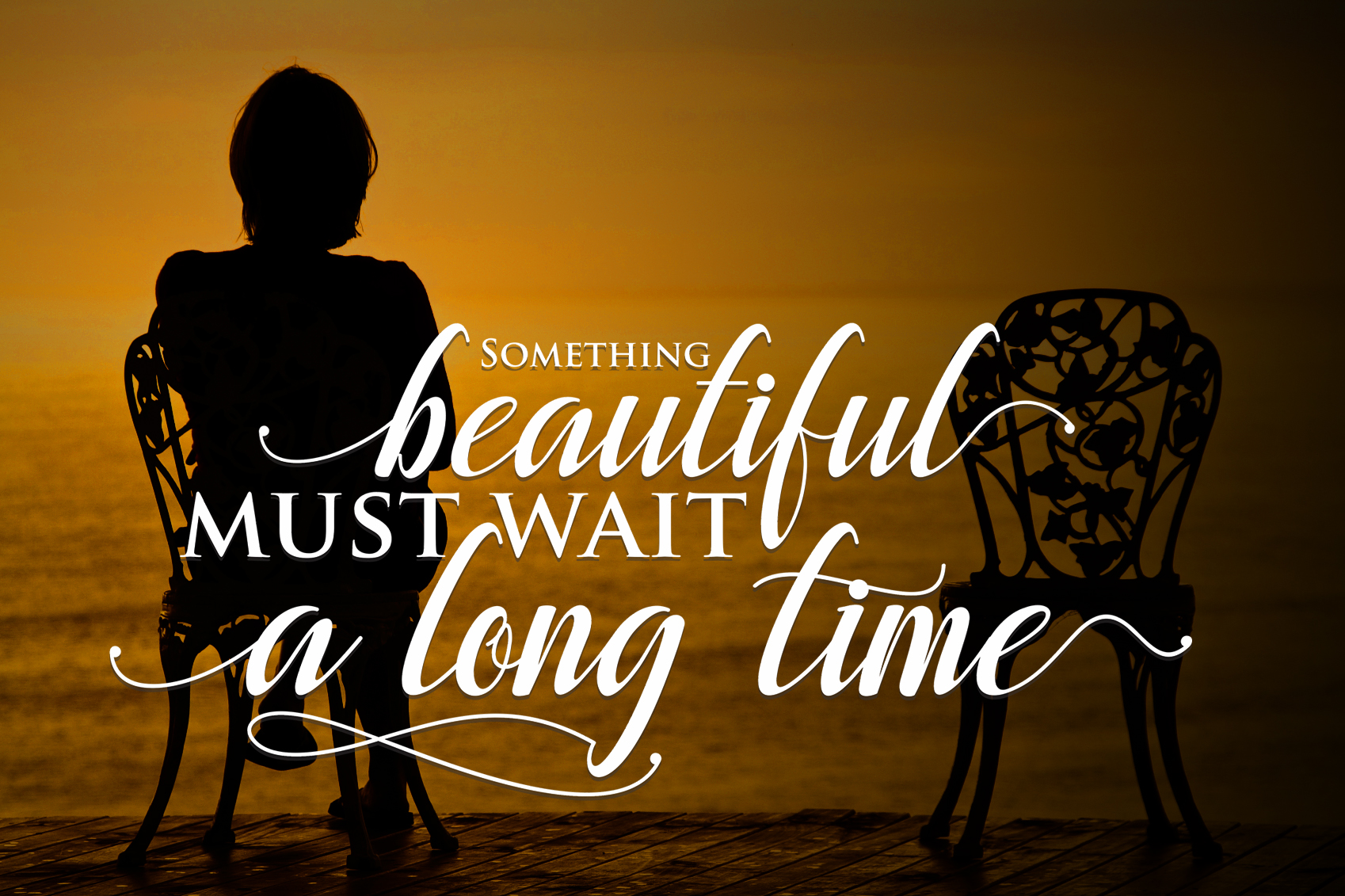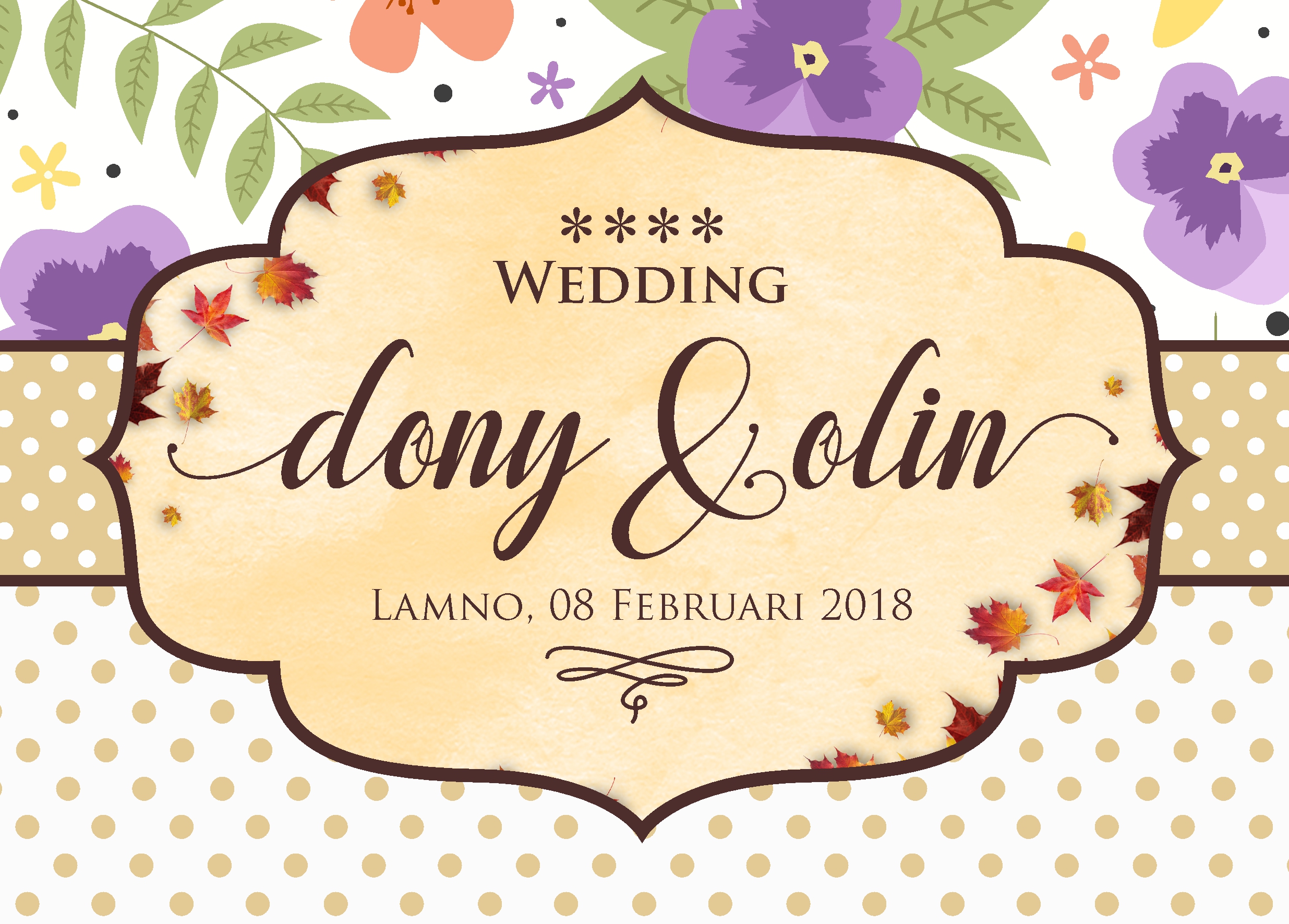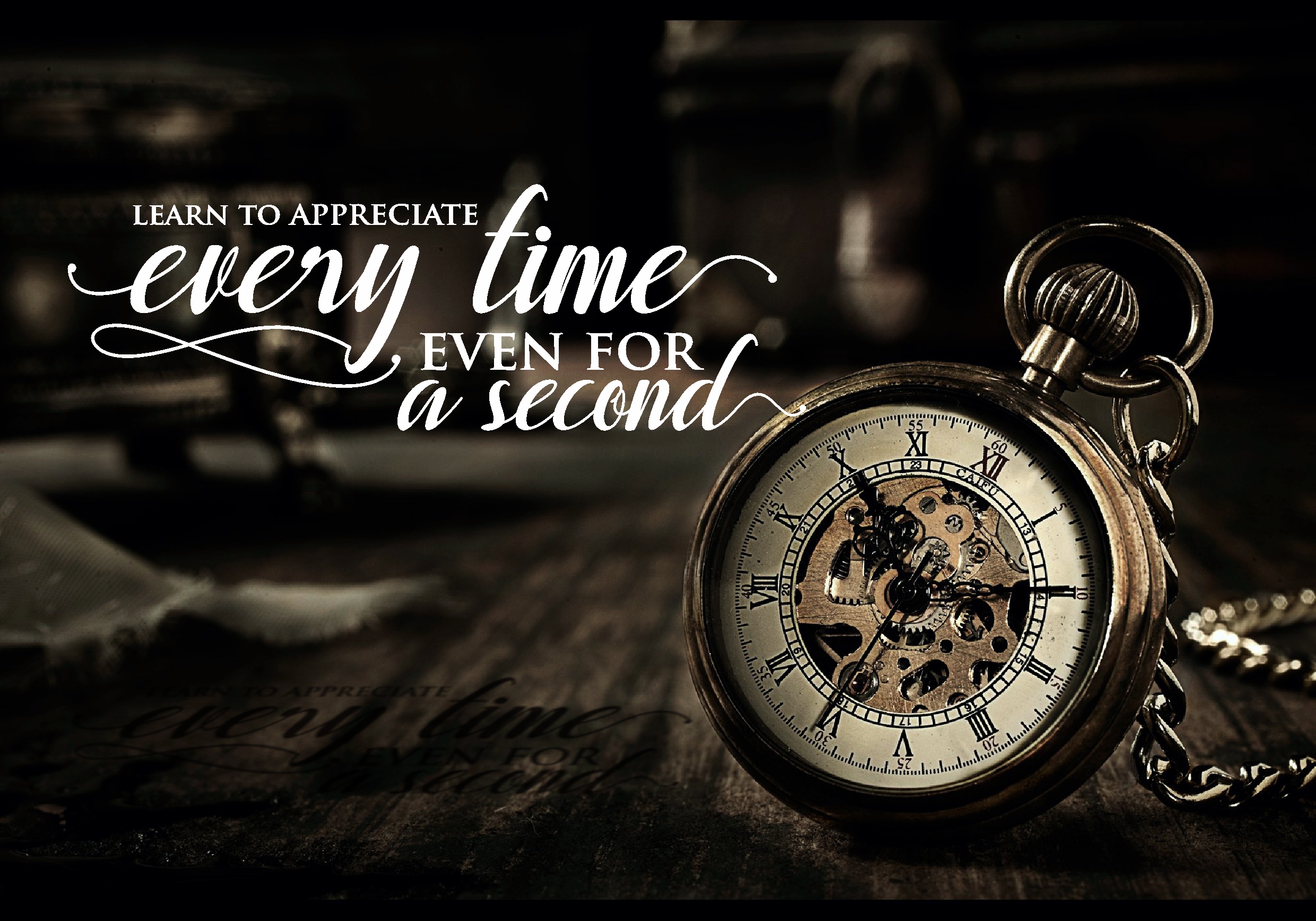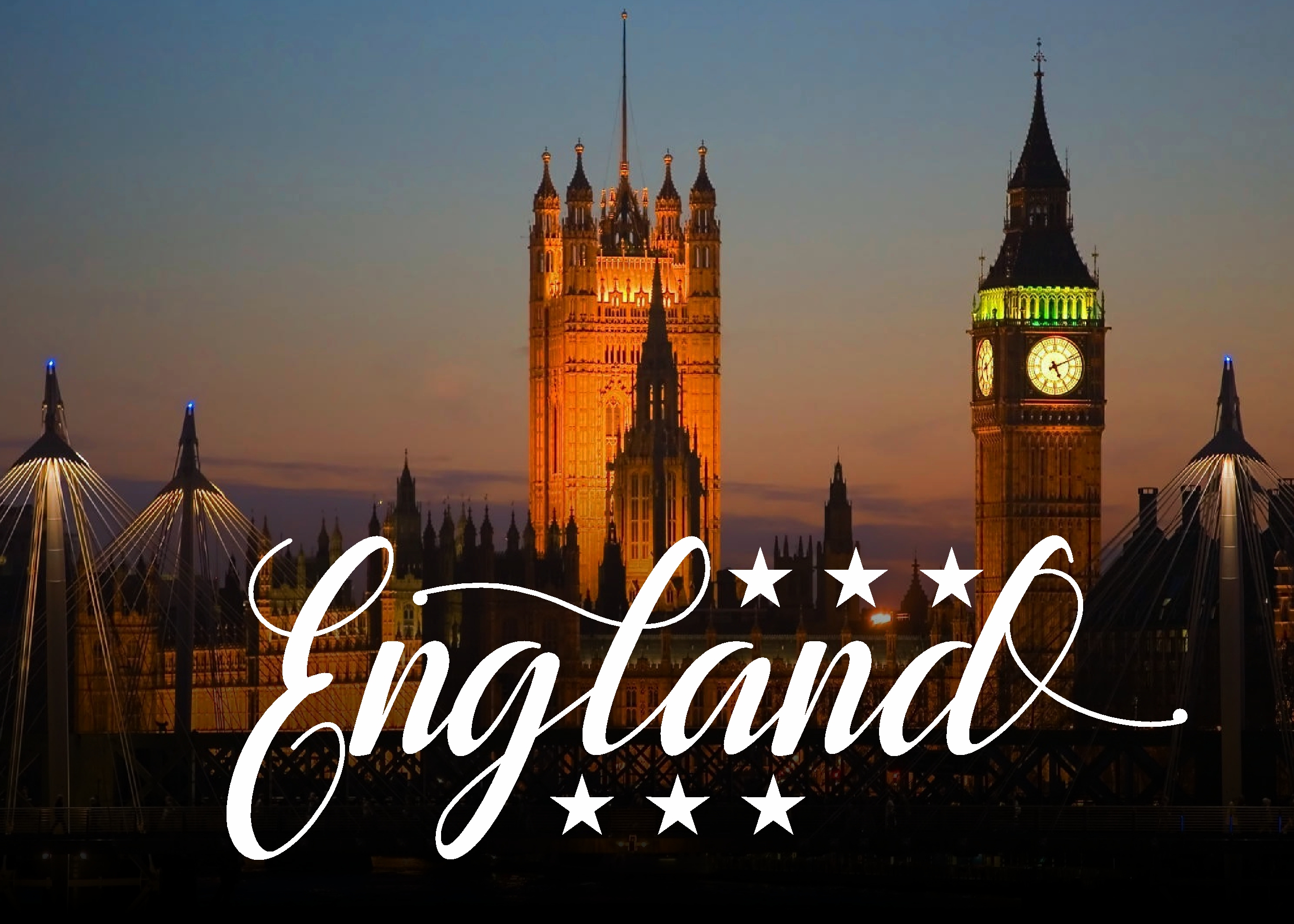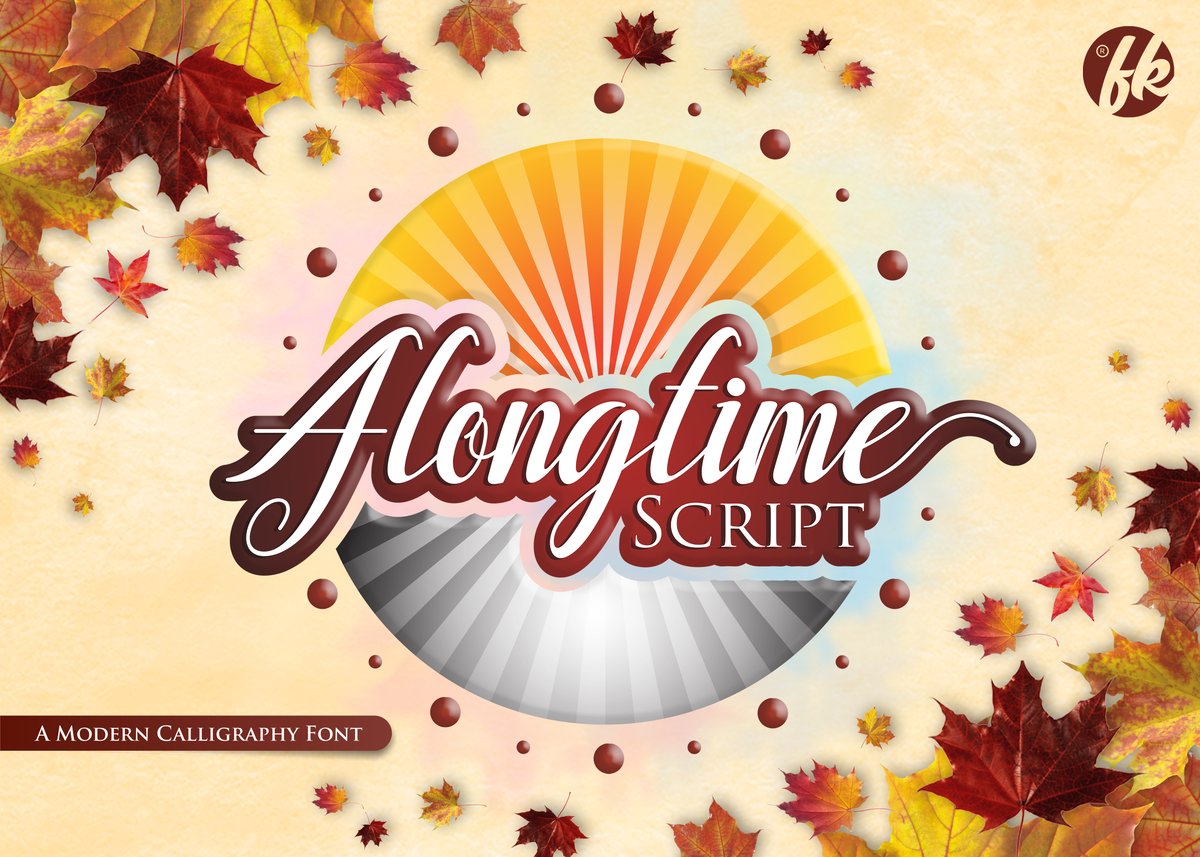
Waiting for the Perfect Moment
Have you ever spent hours staring at a blank canvas, waiting for the perfect moment to strike? The blank page can be a daunting thing, but it’s often in these moments of stillness that true creativity is born. It’s a reminder that sometimes, the best things in life require patience and perseverance.
That’s exactly what Alongtime Script Font is all about – celebrating the journey to true happiness. This beautiful calligraphic font is more than just a pretty face; it’s a reflection of the value we place on every second, every moment, and every breath. For designers, Alongtime Script Font offers a unique opportunity to add a touch of elegance and sophistication to their designs.
Alongtime Script Font Key Features
- Unique Characteristics: The Alongtime Script Font features a beautiful, flowing script design with elegant connections between letters, making it perfect for creating eye-catching headings, titles, and other display text.
- Font Style: Alongtime Script Font comes in a single style, which is ideal for creating a consistent and cohesive visual identity for your brand or project.
Alongtime Script Font Review
Overall, I think Alongtime Script Font has a lot to offer. ✨ The font is perfect for adding a touch of elegance and sophistication to your designs. Its cursive script style makes it ideal for wedding invitations, greeting cards, and other special occasion materials.
- ✨ Beautifully crafted script letters that flow seamlessly into each other.
- ✨ Suitable for a wide range of design applications, from formal to informal.
- ✨ Easy to read and understand, even at smaller font sizes.
- ⚠️ The font may not be the best choice for highly technical or informative content, as it can be difficult to read at smaller font sizes.
- ⚠️ The font’s cursive style can make it challenging to edit or modify individual letters or words.
- ⚠️ Limited character set and language support, which may limit its use in multilingual designs.
Overall, I would give Alongtime Script Font 4 out of 5 stars. It’s a beautiful and versatile font that can add a touch of elegance to your designs, but it may not be the best choice for every project. With a little creativity and experimentation, however, it can be a great addition to any designer’s toolkit.
Getting the Most Out of Alongtime Script Font
For the best results, use Alongtime Script Font for titles, headings, or other text elements that require a unique and elegant touch. You can also experiment with different font sizes, colors, and combinations to create a visually appealing design.
Alongtime Script Font is ideal for creative projects such as invitations, wedding stationery, and social media graphics. It can also be used for branding, packaging, and advertising materials where a touch of elegance is required.